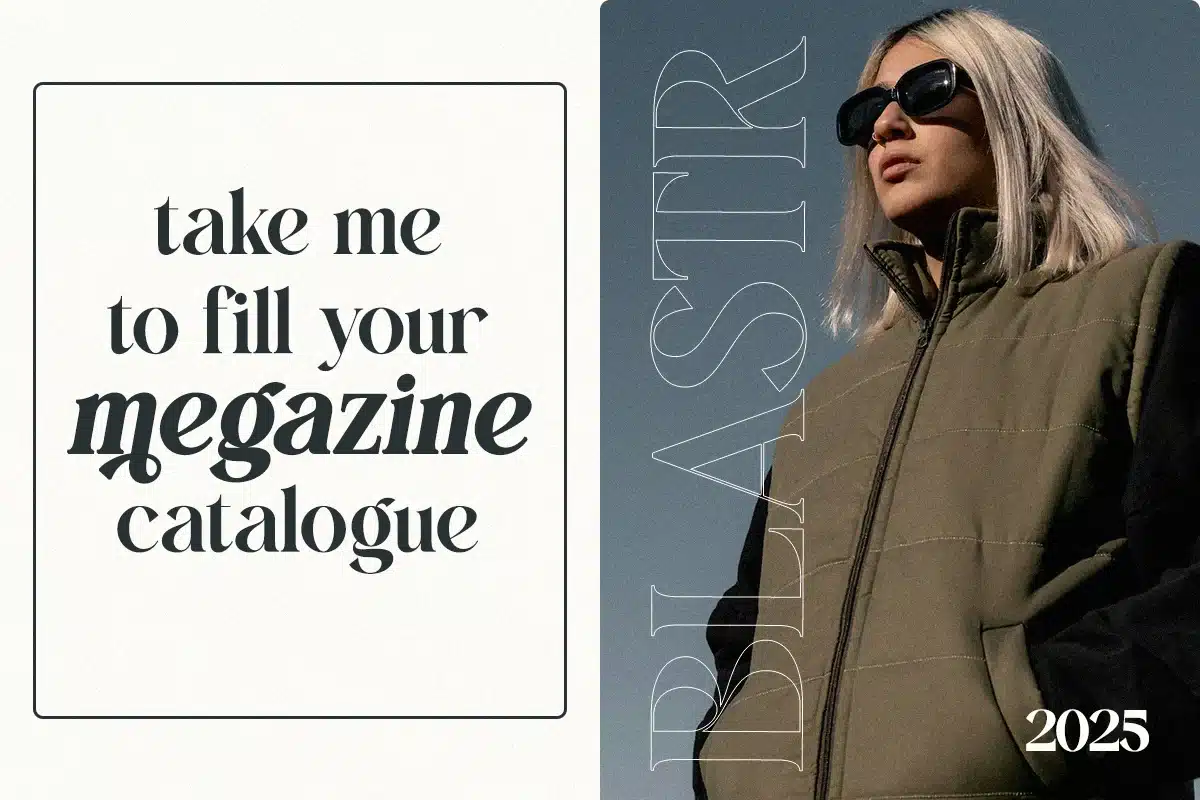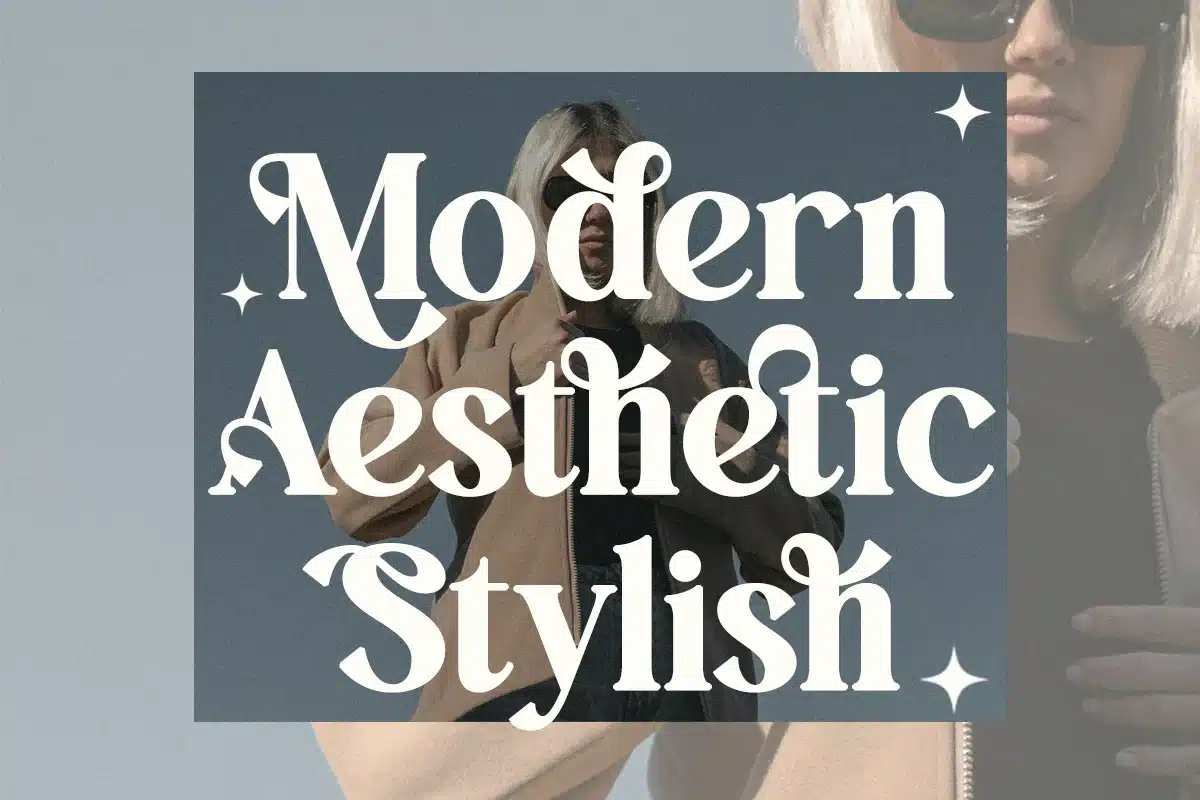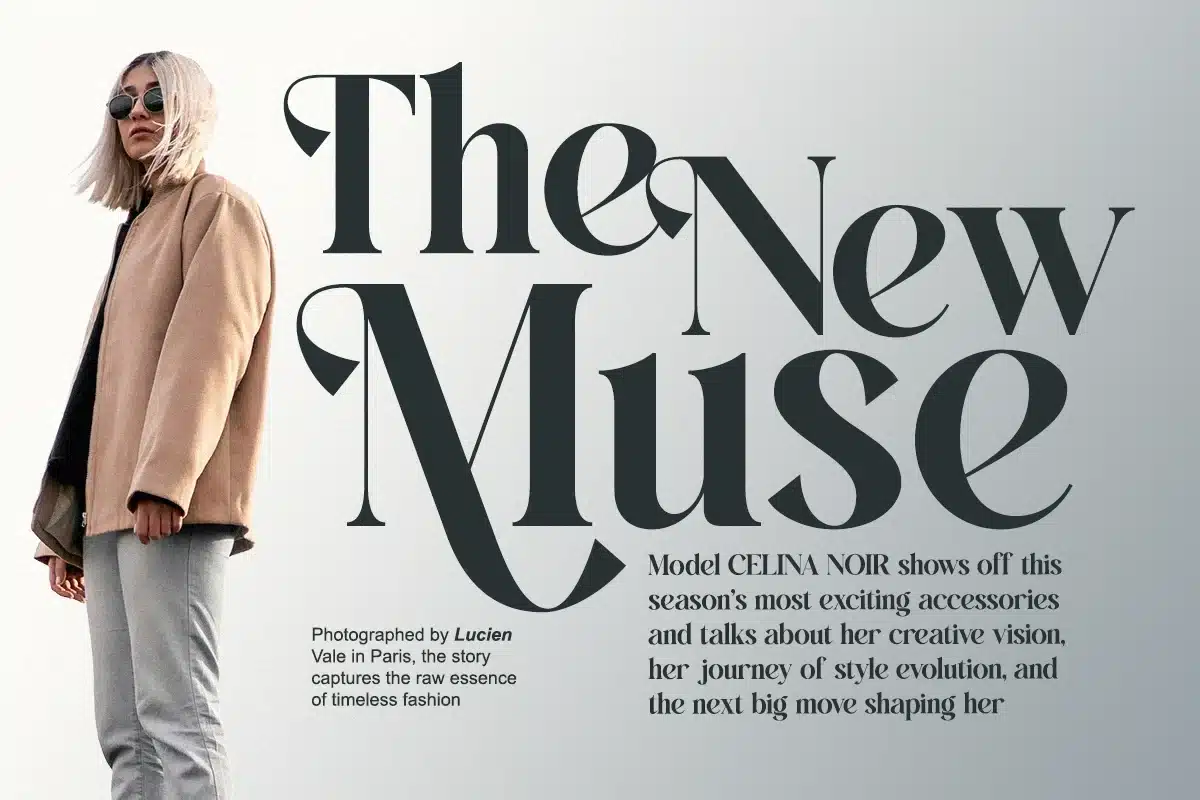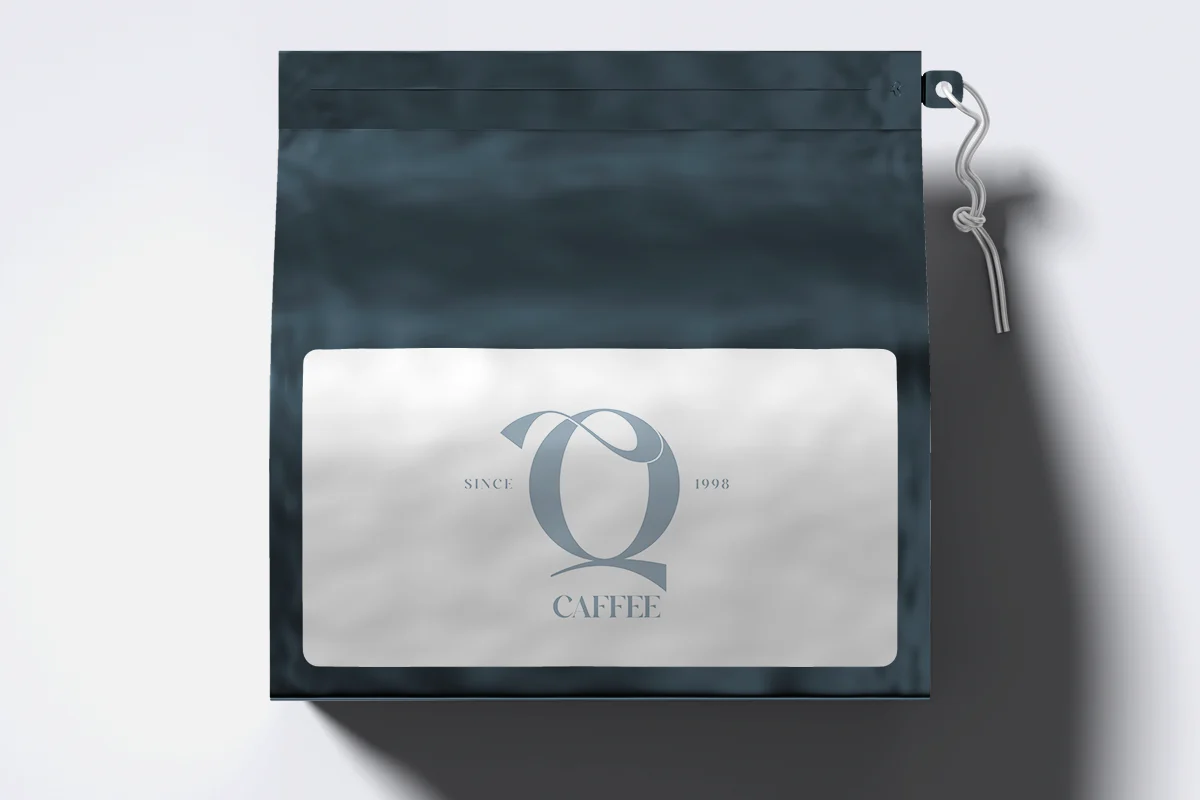
Ralrest – Minimal Modern Branding Serif Montserrat Font
Ralrest is a modern serif display font built for elegance and confidence.
With sharp contrast and sophisticated letterforms, it creates powerful statements for logos, branding, packaging, and editorial headlines.
Ralrest captures the spirit of modern luxury through balance and precision, perfect for timeless identity design.
- Alternates & Ligatures
- Regular & Italic Styles
Perfect For:
Logo design, packaging, editorial layouts, fashion branding, and digital advertising.